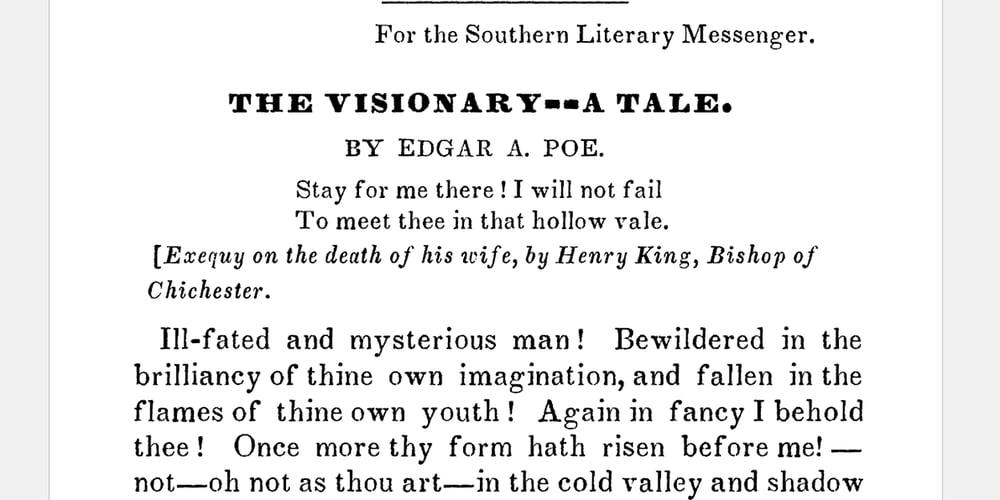
Southern Literary Mess Font Family was designed by Gary Stephens and published by Antiochus. Southern Literary Mess contains 8 styles and family package options. Edgar Allan Poe published many of his great works in the Southern Literary Messenger (c. 1834 – 1864 ) and was, for a time, the Editor.The typeface is very clear and elegant.Each character printed is different,– this mechanism produces the authentic feel. For example one “e” is different to another “e”. When typing, the letters appear to permutate slightly before becoming fixed.A pdf example of the style may be found here :https://www.behance.net/gallery/221616451/Southern-Literary-Messenger-Font